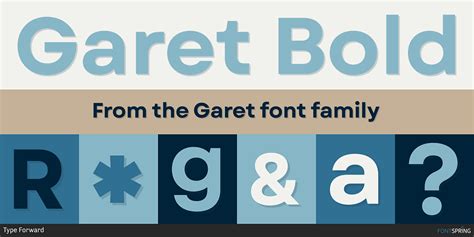
Garet-Bold Font. Web garet font family. Web garet is a modern geometric sans serif.
Web garet font family. Web garet is a modern geometric sans serif.
Web garet font family. Web garet is a modern geometric sans serif. Web garet font family.